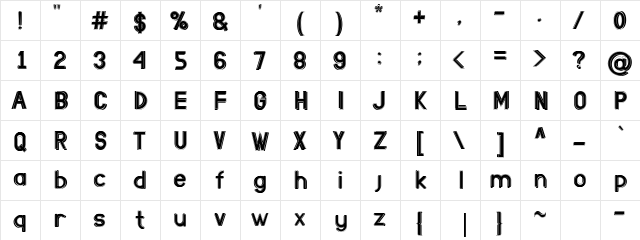
its CLASSY Regular
| Designer | Indra Gunawan |
Design Context for its CLASSY Typeface
its CLASSY is a composed and adaptable typeface that performs quietly and consistently across a wide range of design contexts.